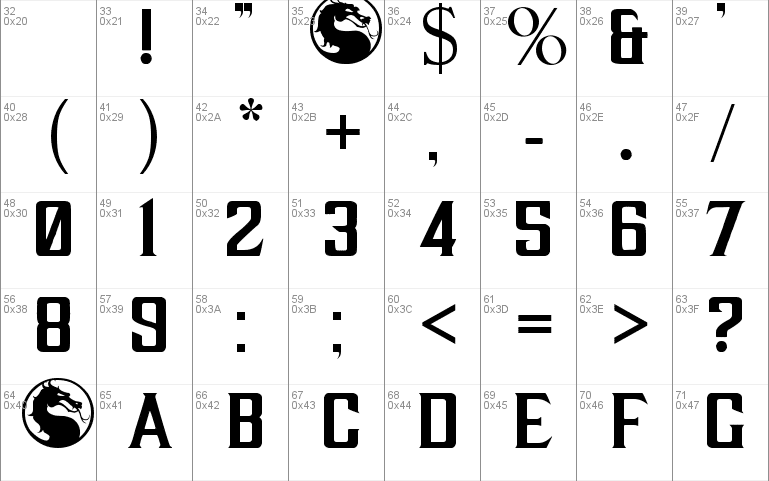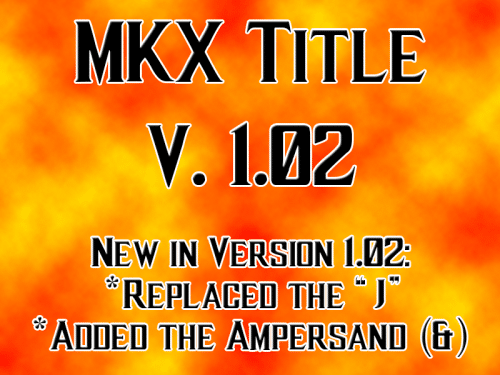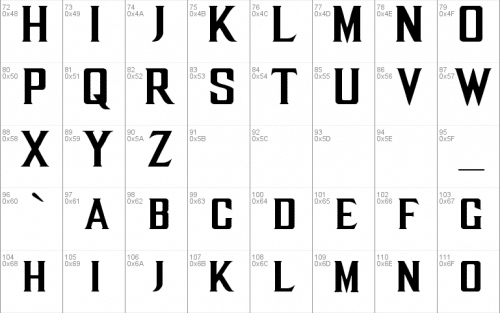
I noticed there was a new font when Netherrealm revealed their new game Mortal Kombat X, and wanted to recreate it for my own personal use.
V.1.01:
Added Numbers, Question Mark, Exclamation Mark and Period
Thickened the V, W, Z, R and K
V.1.02:
Added Ampersand, Replaced the J